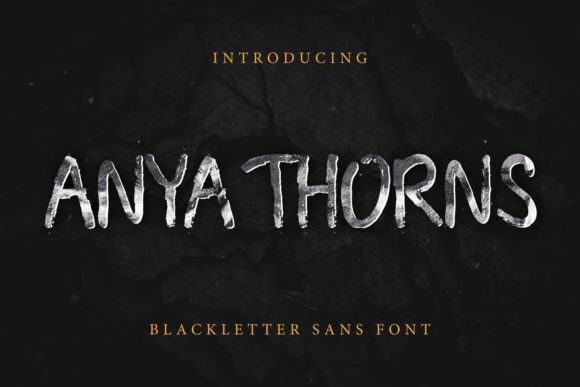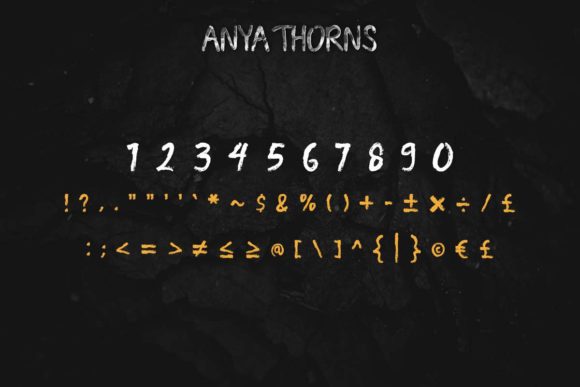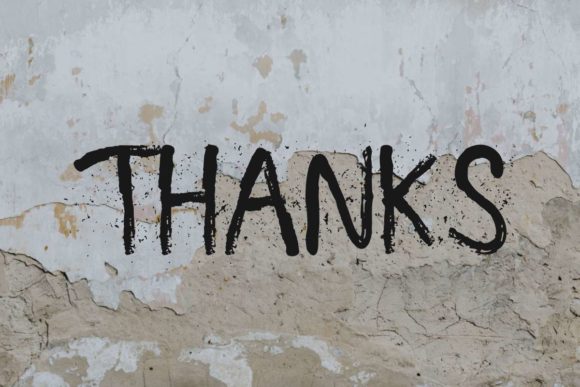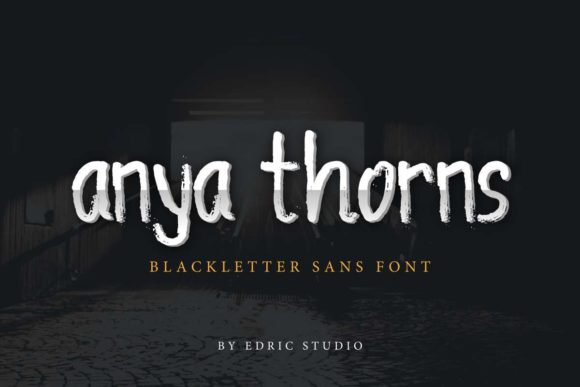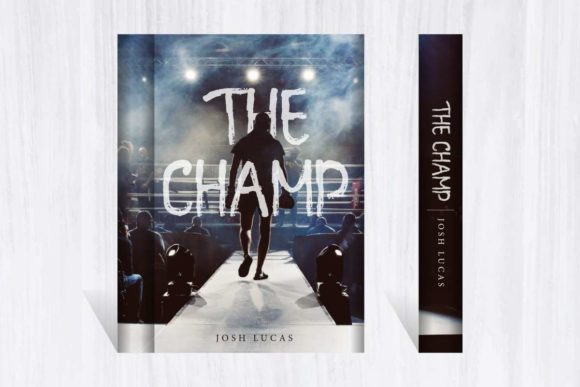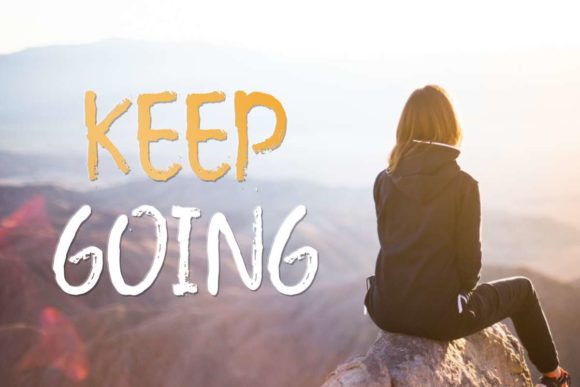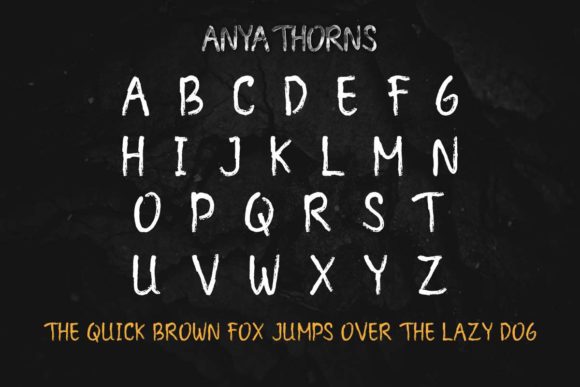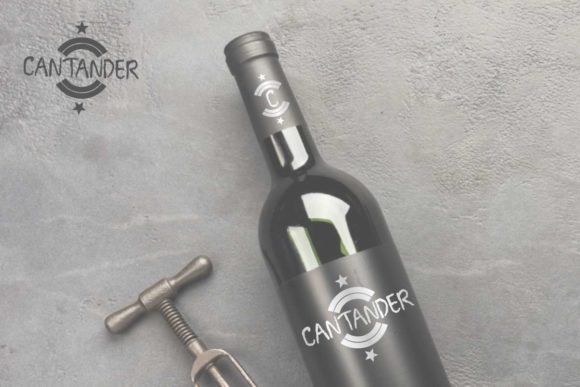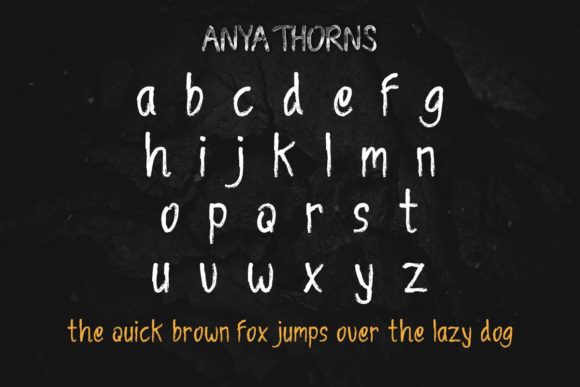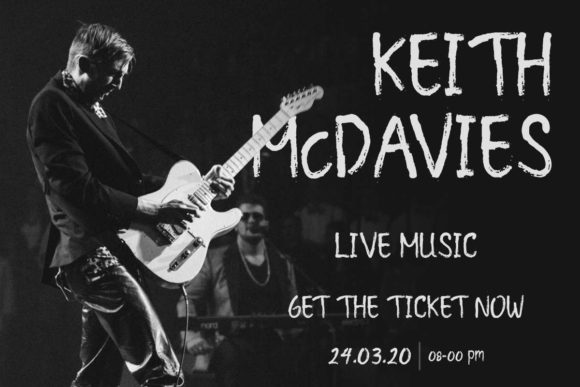
Anya Thorns Font
About Anya Thorns Font
Anya Thorns is a brushed script font, carefully handcrafted to become a true favorite. Its casual charm makes it appear wonderfully down-to-earth, readable and, ultimately, incredibly versatile. Anya Thorns will look outstanding in any context, whether it’s being used on busy backgrounds or as a standalone headline!